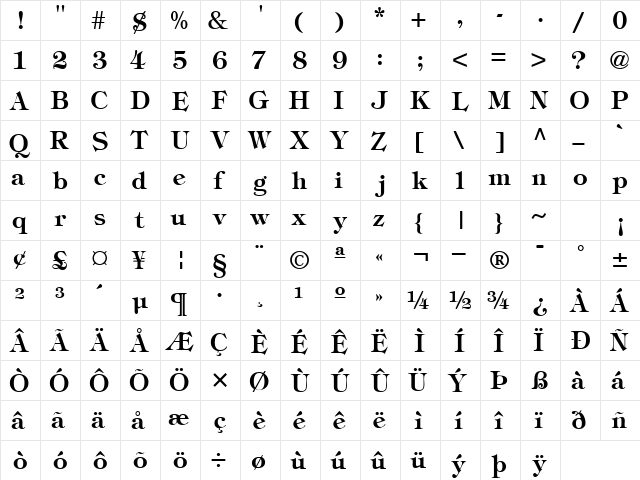
SophisticateSSK SemiBold
Design Context for SophisticateSSK Typeface
SophisticateSSK offers clean, dependable letterforms without strong stylistic allegiance, making it a practical choice for designers who need flexibility. Its bold stroke weight gives it real presence on the page.
Pro Tip: Pair SophisticateSSK with a font of contrasting weight or personality to build a more expressive typographic hierarchy.